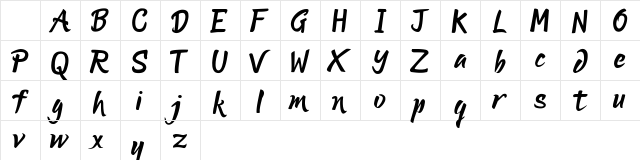
Lucky Dream Bold Demo is a composed and adaptable typeface that performs quietly and consistently across a wide range of design contexts. Its bold stroke weight gives it real presence on the page.